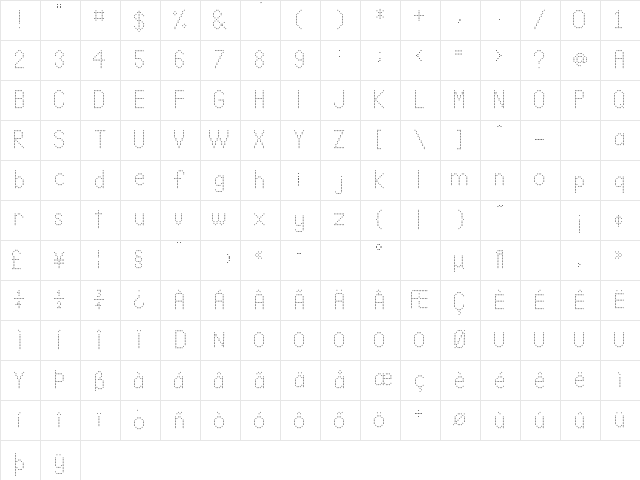
LLDot Regular Free Font
LLDot Regular
Design Context for LLDot
LLDot is rooted in pixel-grid construction, making it a natural fit for game UI, retro computing aesthetics, and digital nostalgia projects.
Pro Tip: Use LLDot at sizes that align with its pixel grid for the sharpest rendering - scaling to non-integer multiples can introduce unwanted blur.